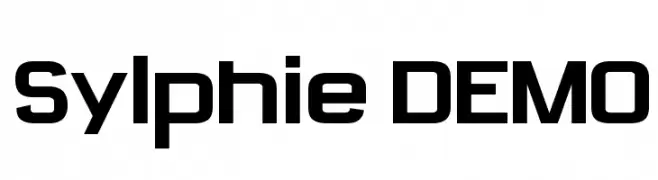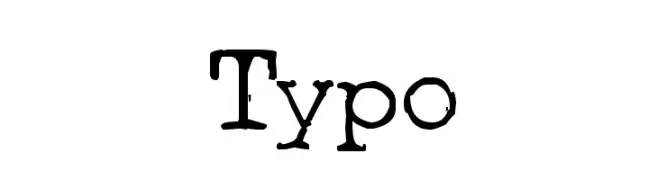
A modern, artistic font with elongated, narrow characters and creative twists.
A bold, expressive handwritten font with thick strokes and a playful style.
A bold, geometric font with a modern and impactful design.
A playful, handwritten font with bold, irregular strokes and a casual feel.
A bold, hand-drawn font with an expressive and informal style.
A playful, hand-drawn font with a whimsical and dynamic style.
A bold, playful font with thick, rounded strokes and a hand-drawn feel.
A lively, handwritten font with dynamic strokes and a playful, informal style.
A distressed, vintage typewriter-style font with a rough, textured appearance.
A bold, playful handwritten font with a casual and friendly style.